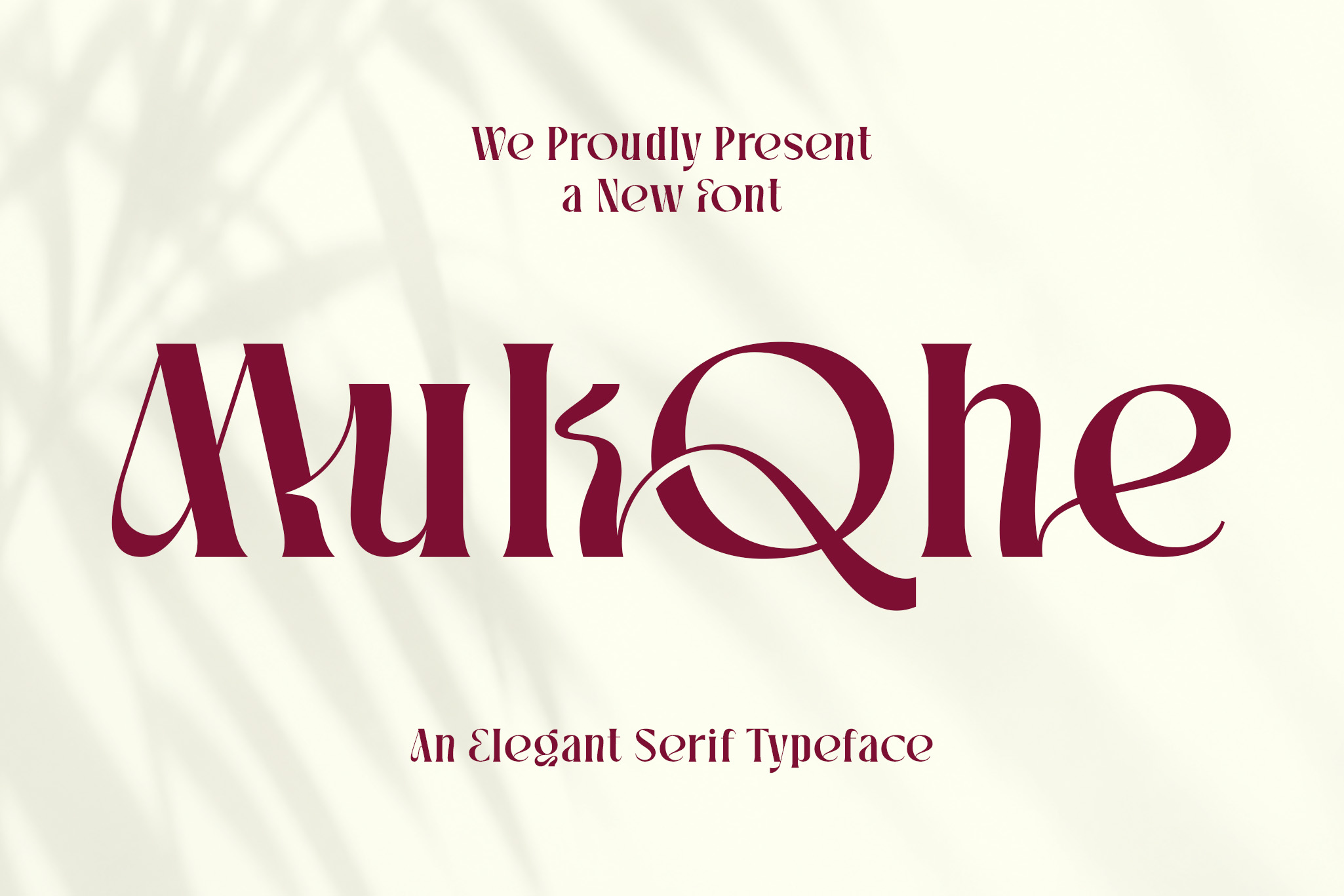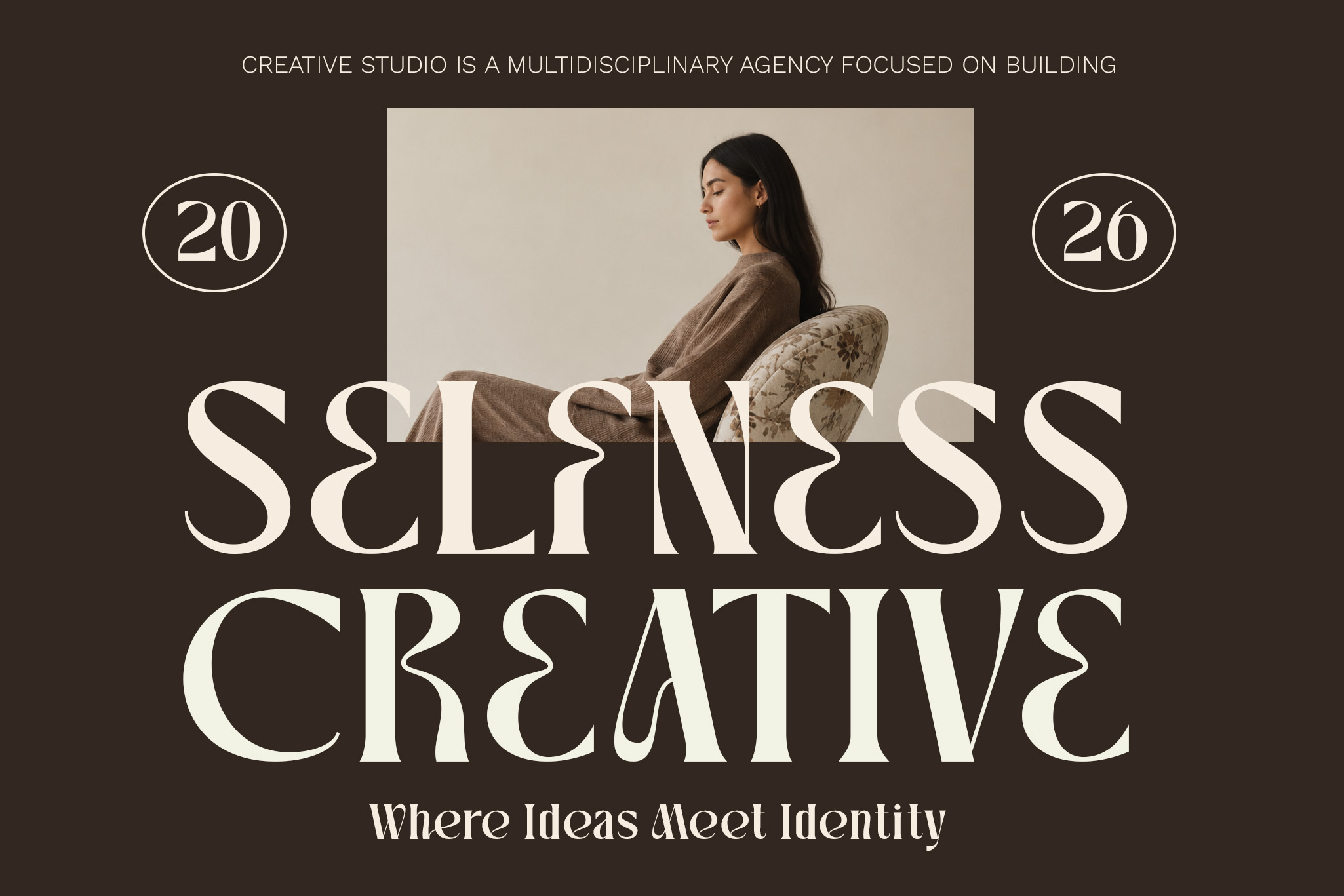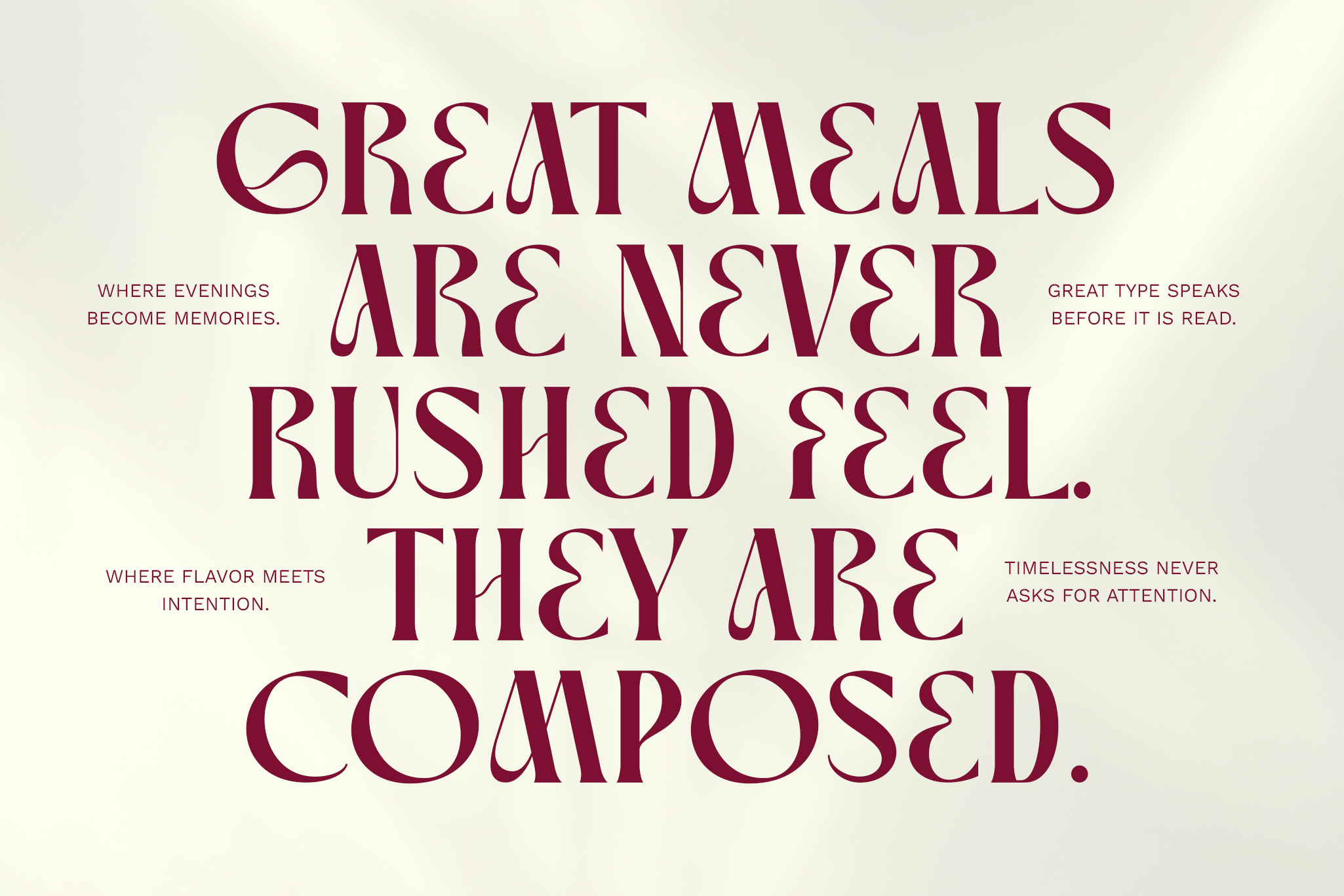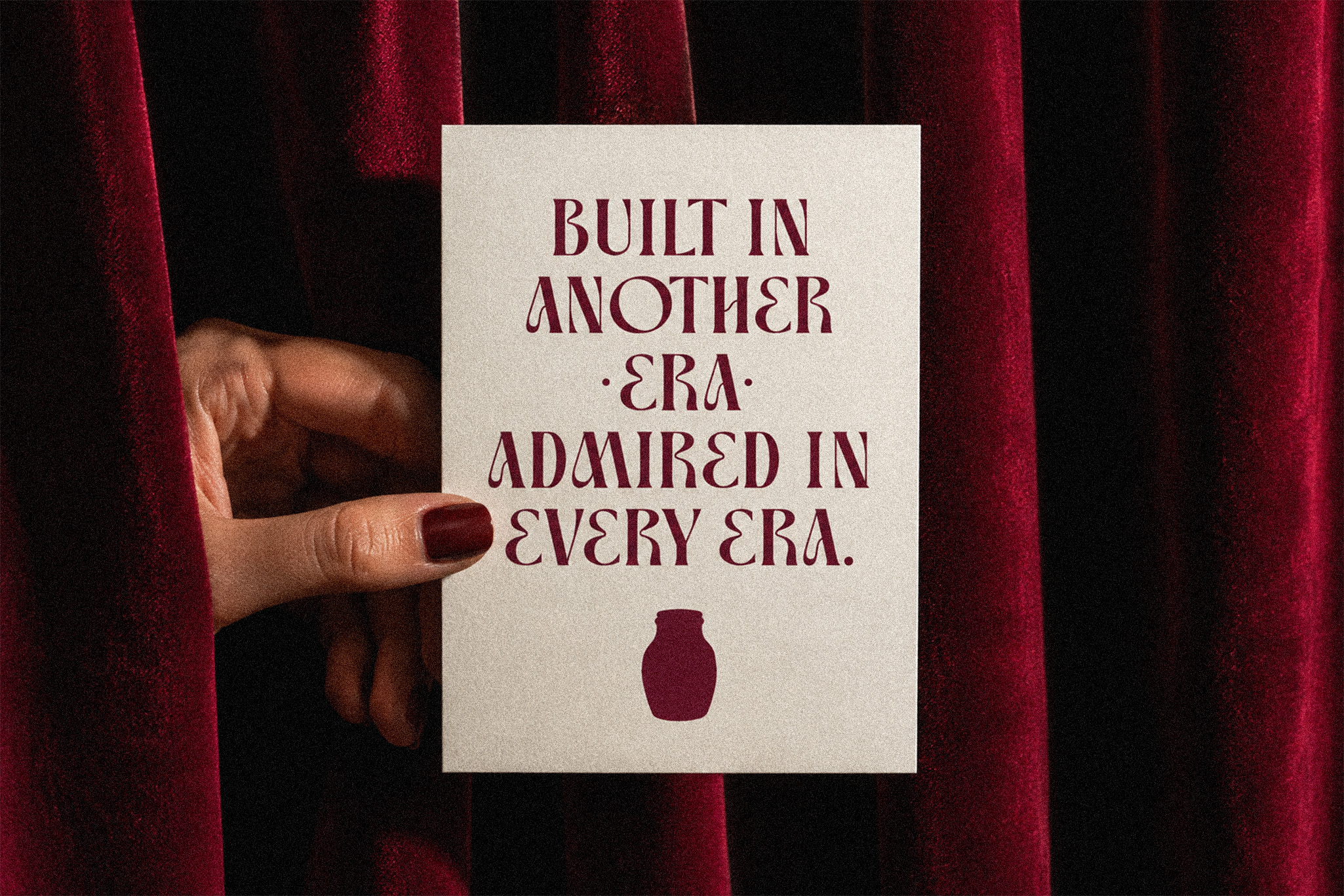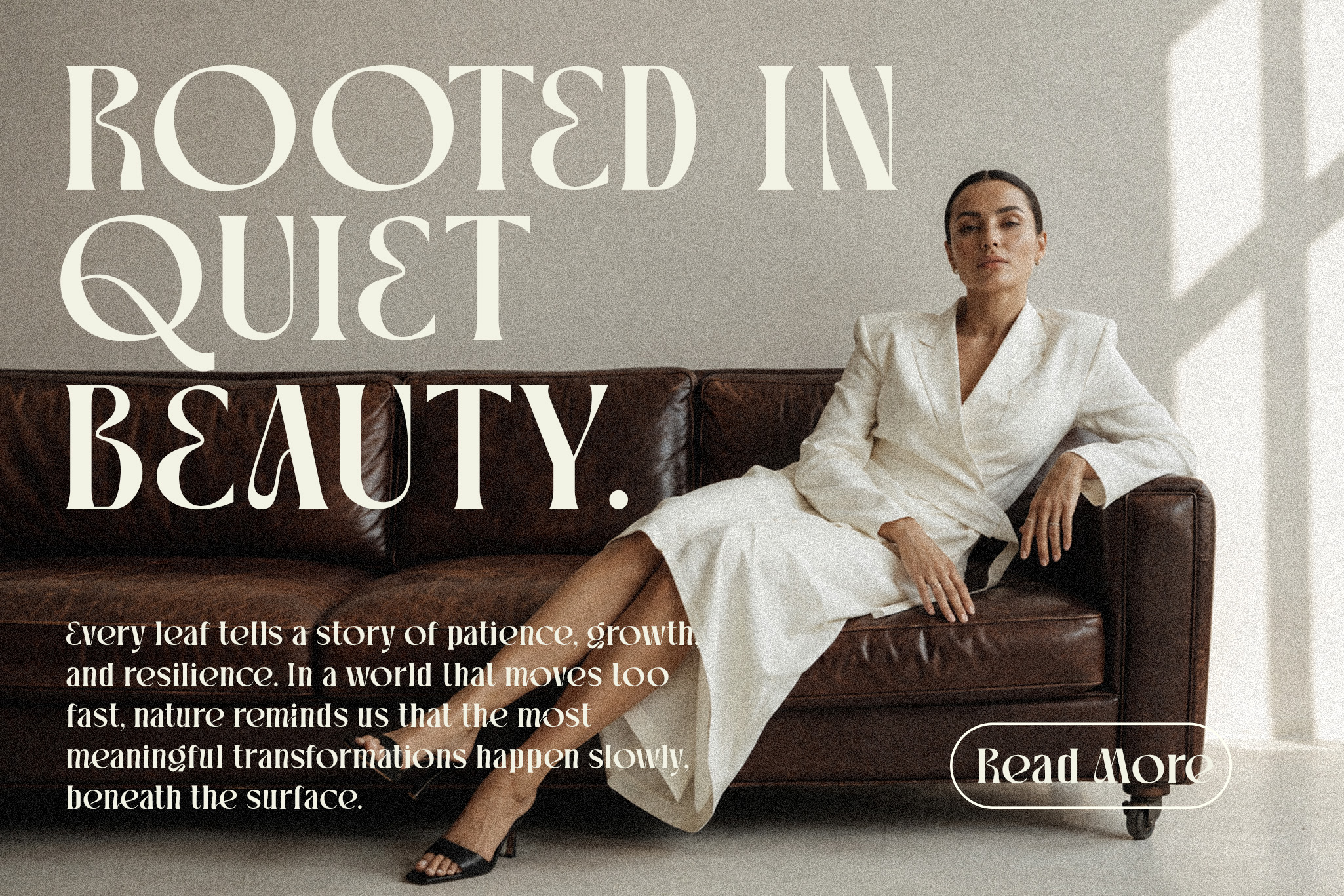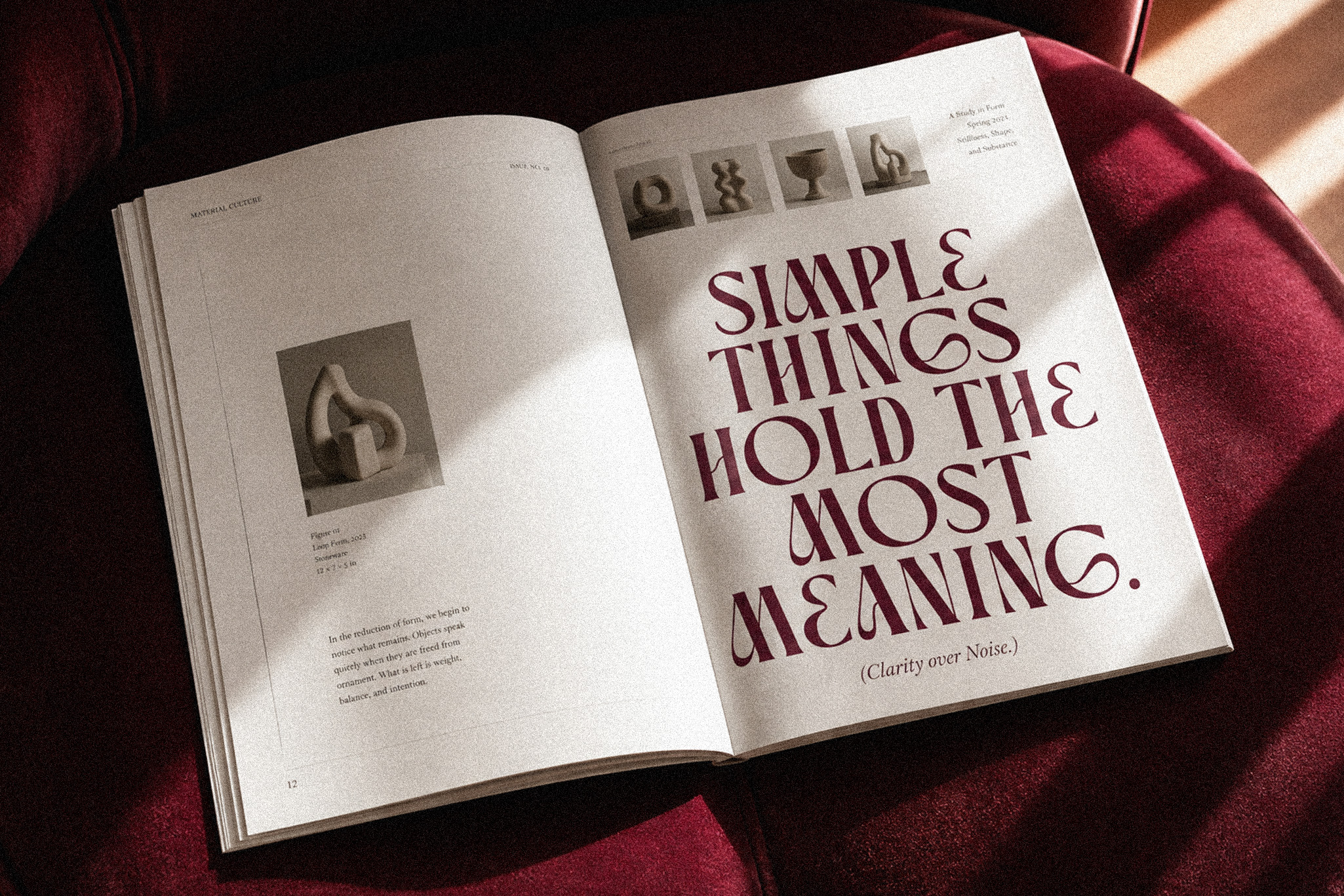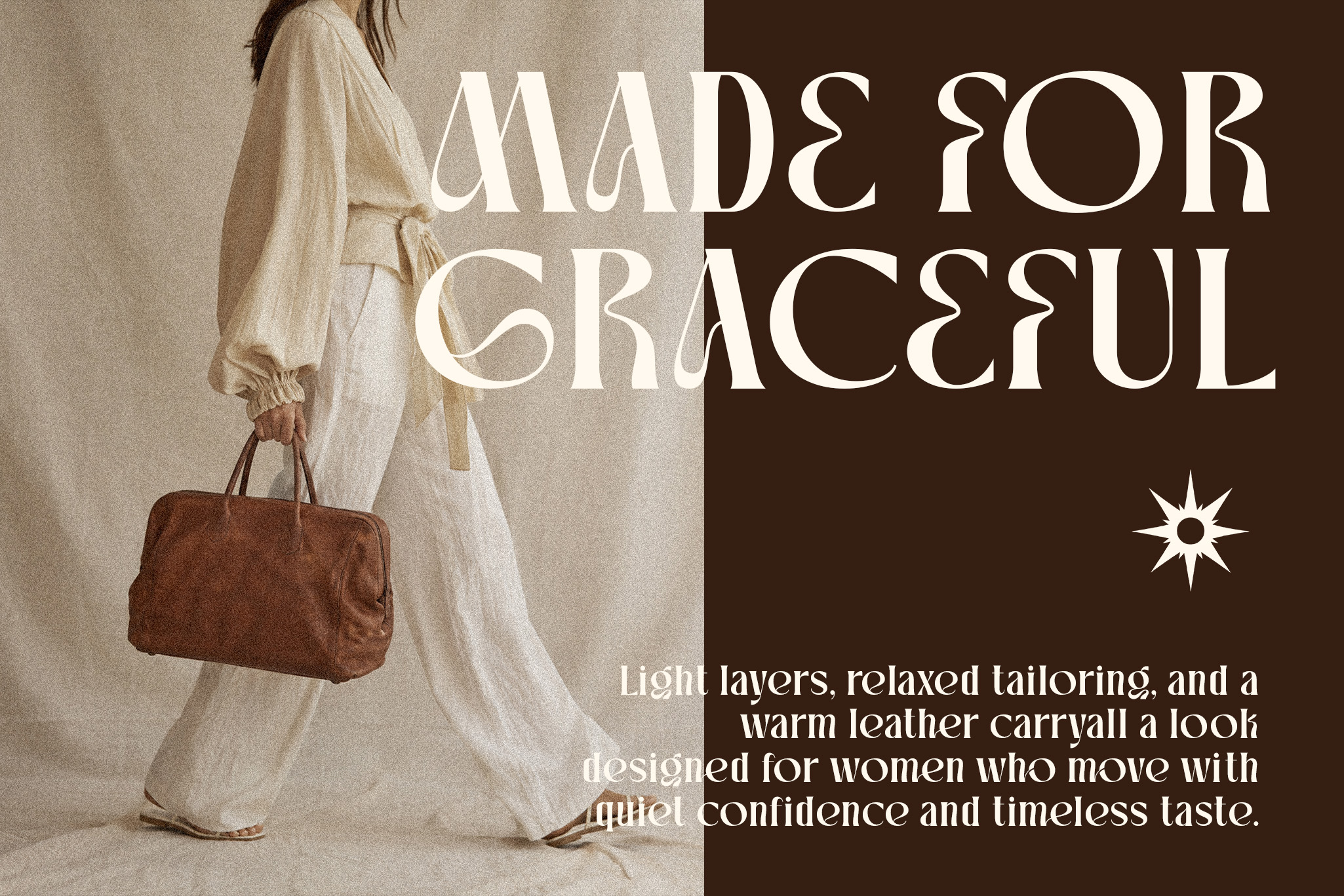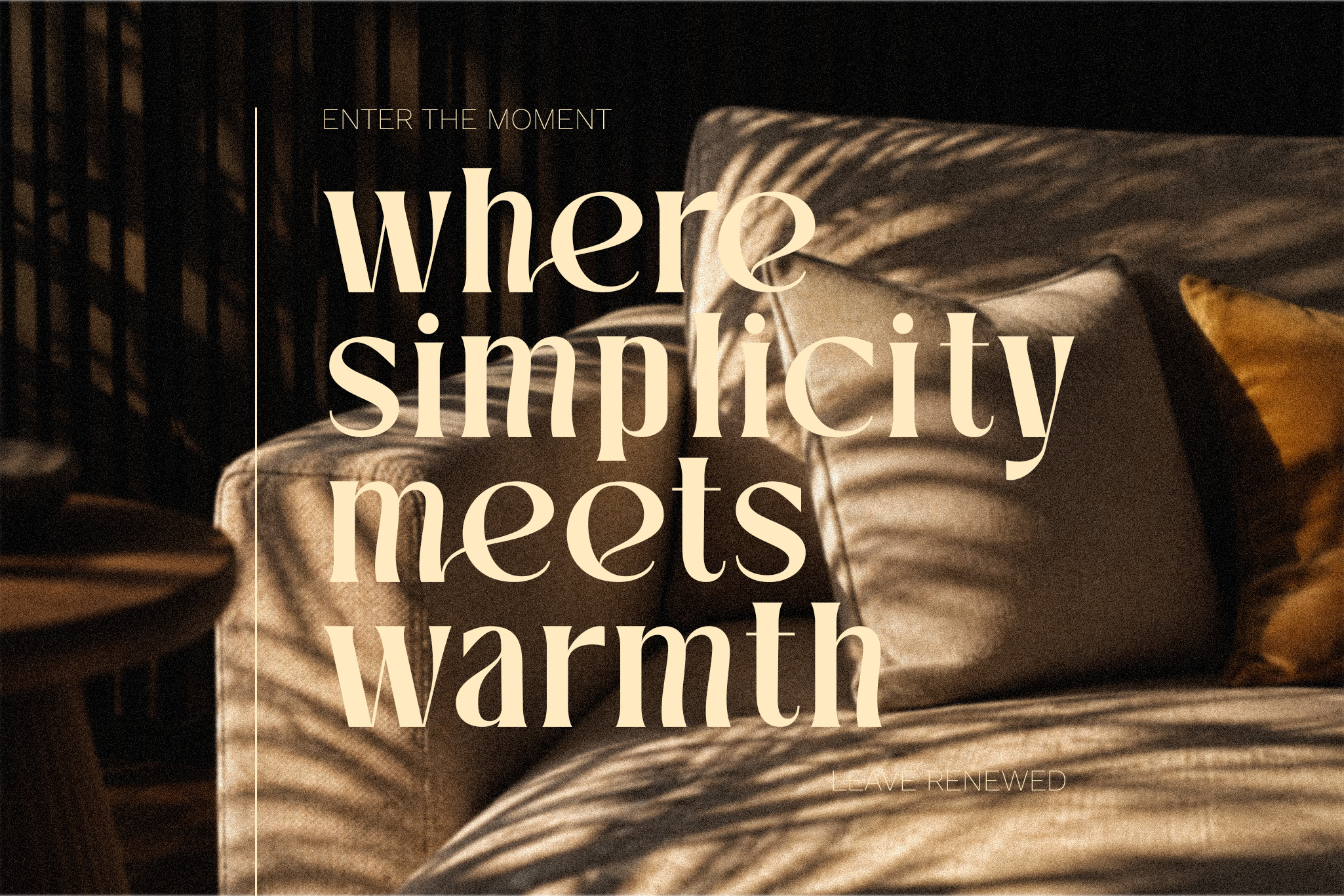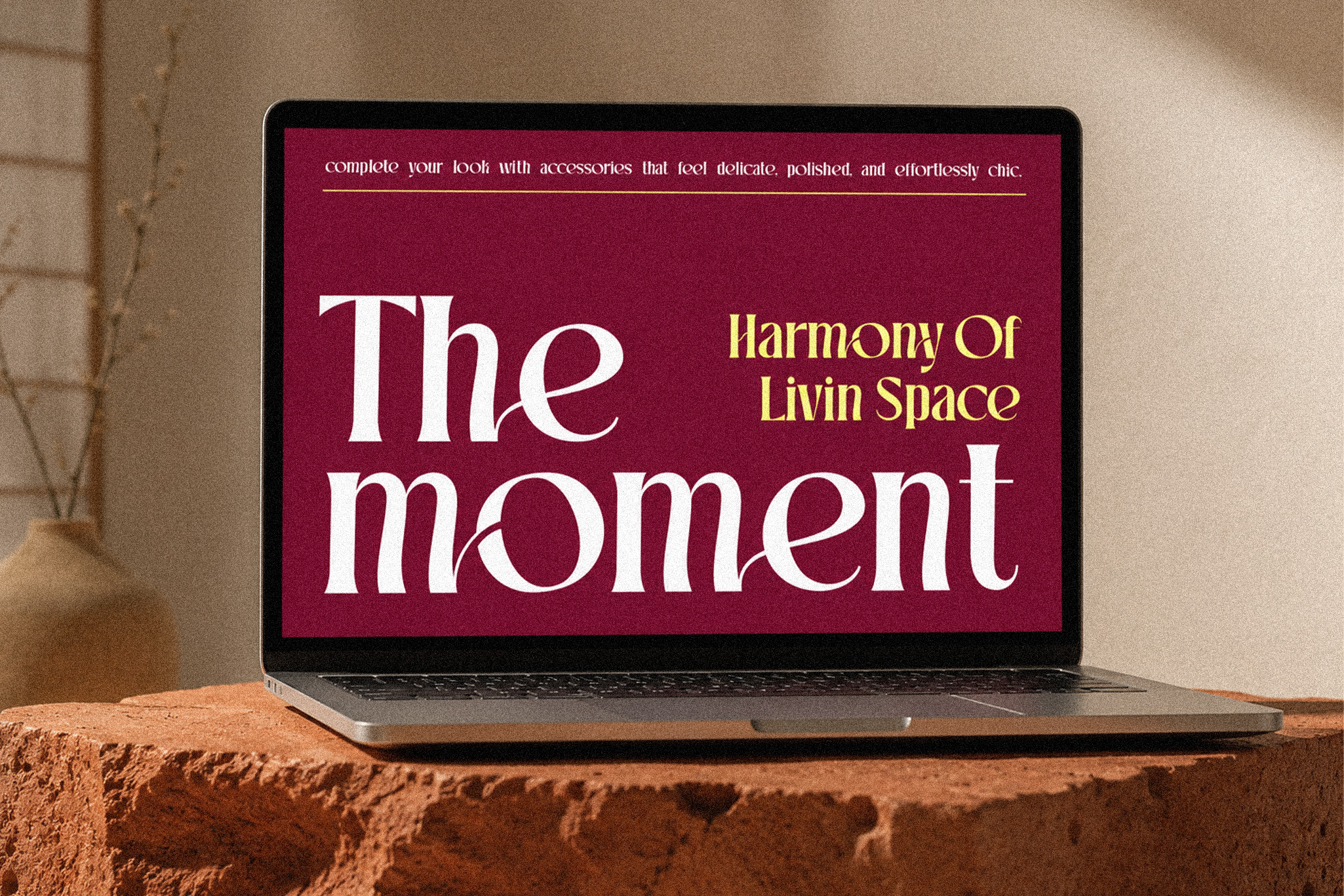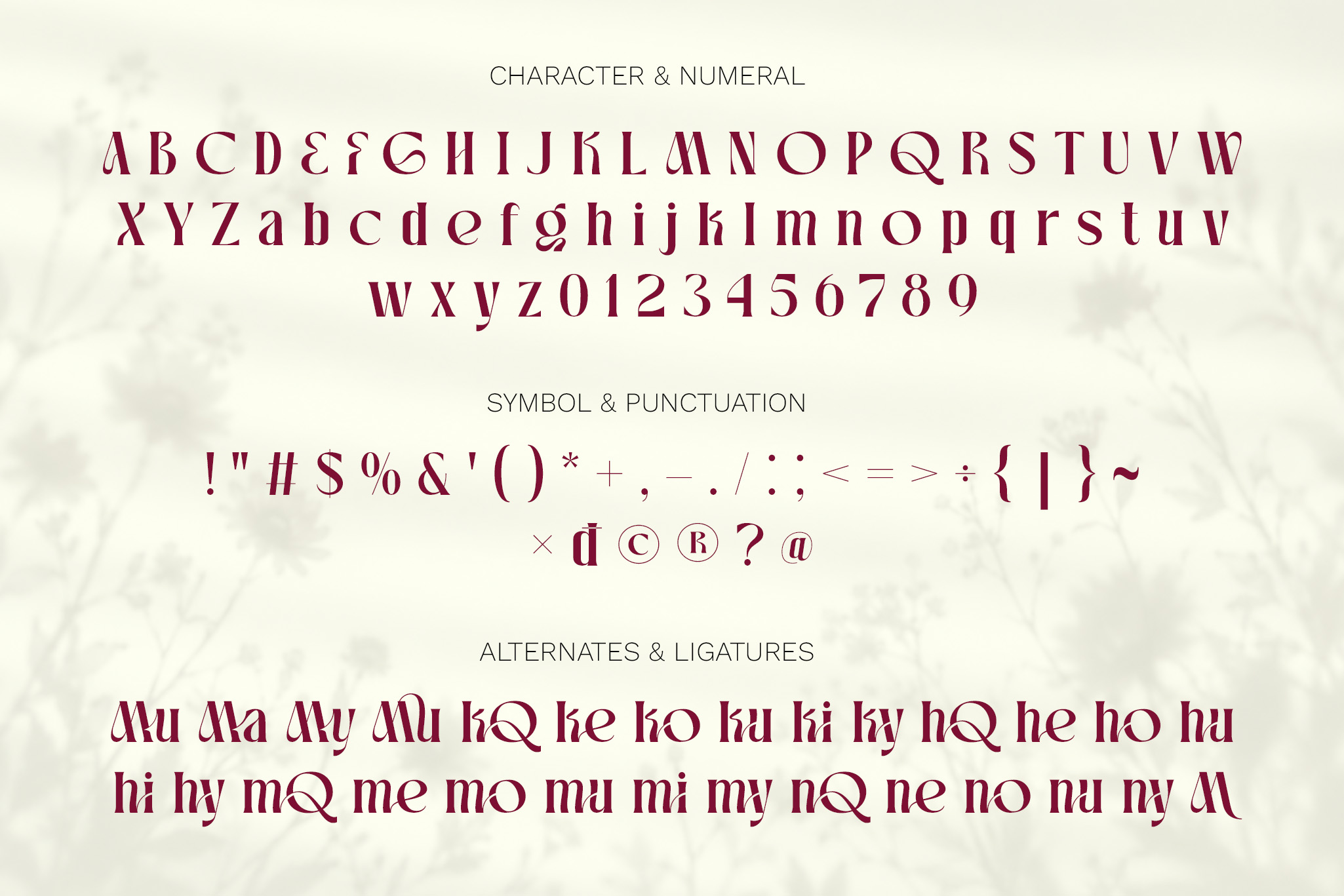
Mukqhe - Elegant Serif Font
Introducing Mukqhe – Elegant Serif Font
Mukqhe is an elegant serif font with a luxurious, romantic, and artistic character. Each letter is designed with bold-thin contrast, smooth curves, and decorative details. This font is perfect for logos, branding, wedding invitations, product packaging, editorials, fashion, restaurant menus, and beauty brands.
• Beautiful ligatures
• Stylistic alternates